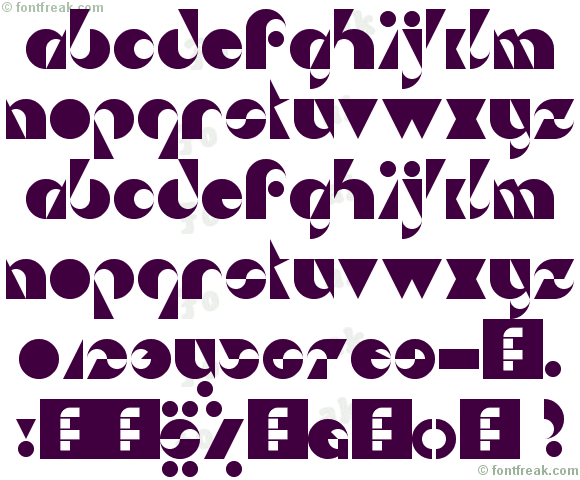
Da Sei Nei! Regular
Da Sei Nei! Regular is a striking display font designed by Andrew McCluskey in 2014, characterized by its unique blend of modern aesthetics and playful charm. This font falls under the decorative category, making it an excellent choice for projects that require a bold visual impact. The typeface features a distinctive stroke weight that is both thick and consistent, providing a strong presence on the page. The letterforms display minimal contrast, contributing to a cohesive look that is easy to read while maintaining a sense of personality. Additionally, the spacing is well-balanced, ensuring that each character stands out without overwhelming the viewer.
Due to its eye-catching design, Da Sei Nei! Regular is well-suited for a variety of creative applications. It is perfect for wedding invitations, where its fun nature can add a whimsical touch to the event. Similarly, it works wonderfully for movie posters, capturing the attention of potential viewers with its unique flair. Restaurant menus can also benefit from this font, as it can help convey a modern yet inviting atmosphere. Content creators seeking to make their social media posts pop will find this font to be an excellent choice for eye-catching graphics.
The target audience for Da Sei Nei! Regular includes graphic designers, small business owners, and content creators who are looking for a versatile and engaging typeface. This font stands out not just for its bold design, but also for its ability to bring a sense of creativity and playfulness to any project. With a free license available, the Da Sei Nei! Regular font free download makes it accessible for anyone looking to enhance their design work with a distinctive and memorable typeface.